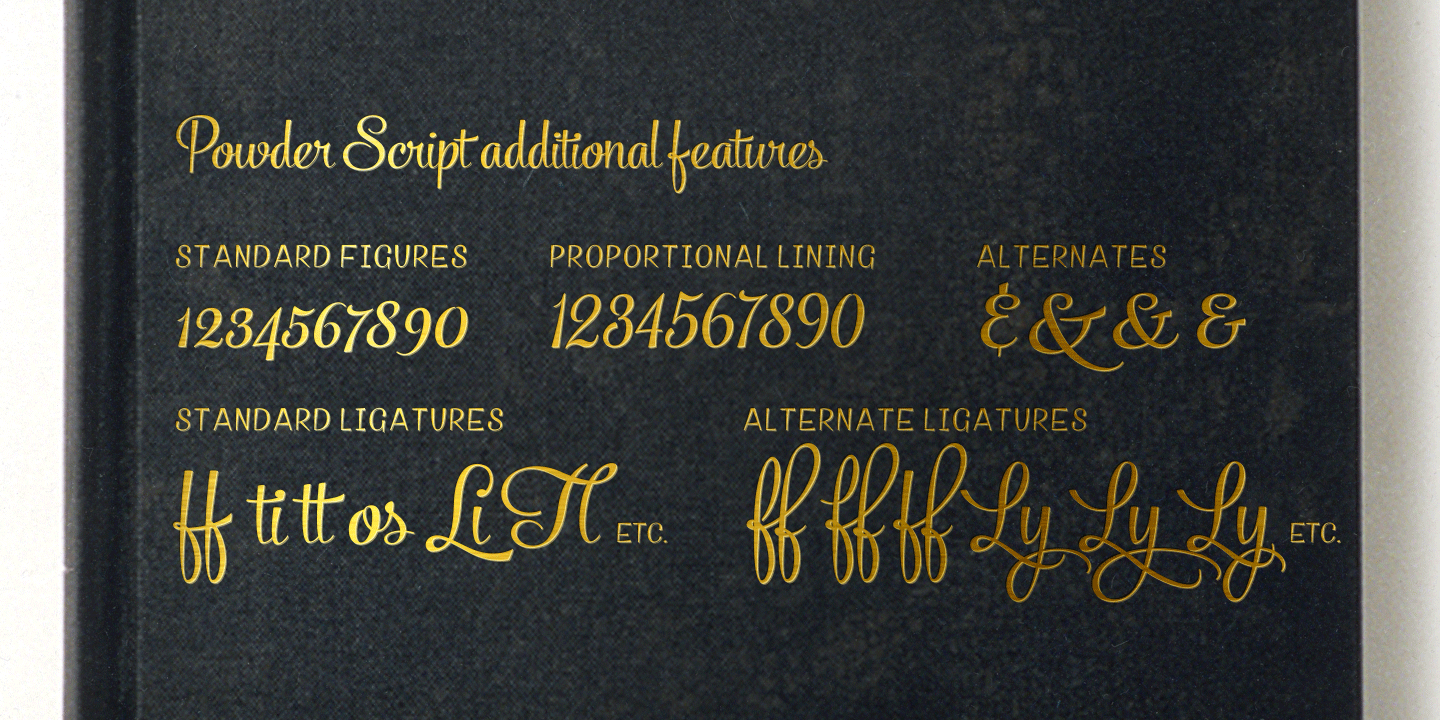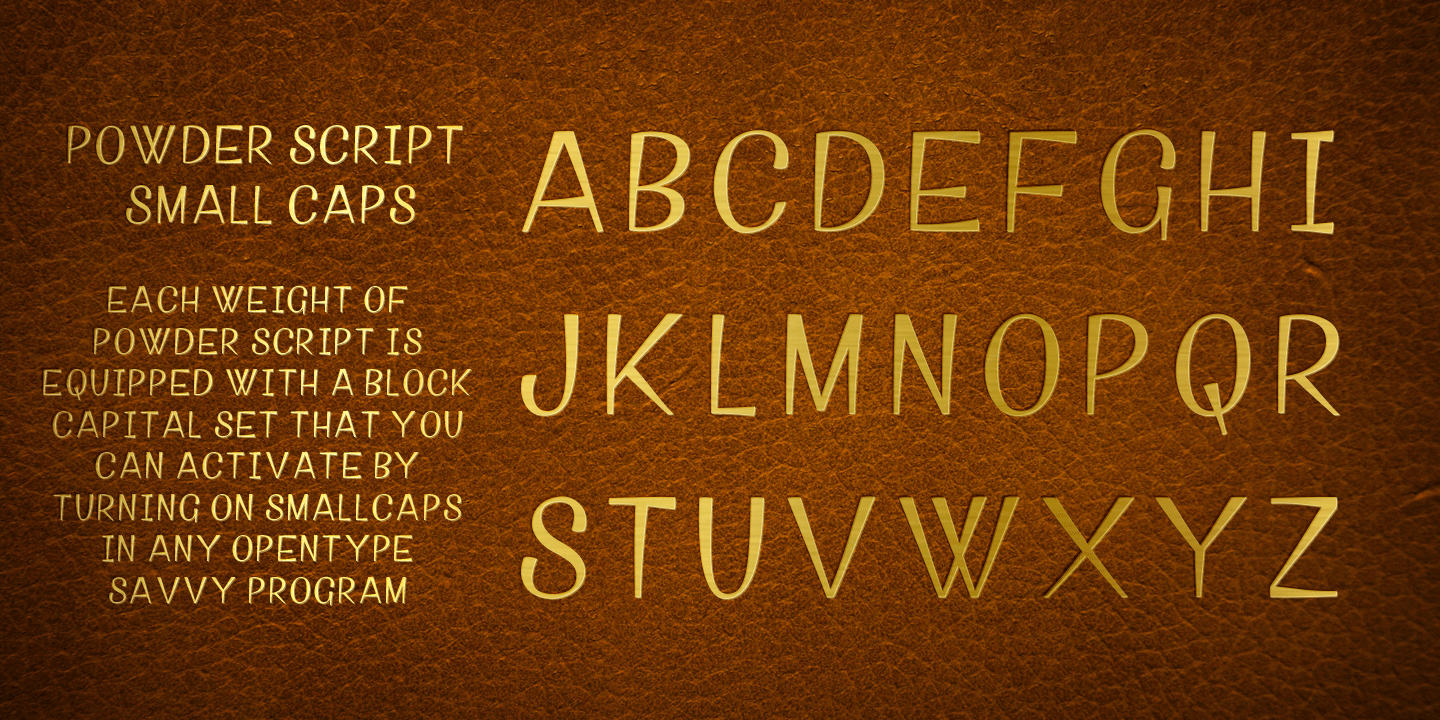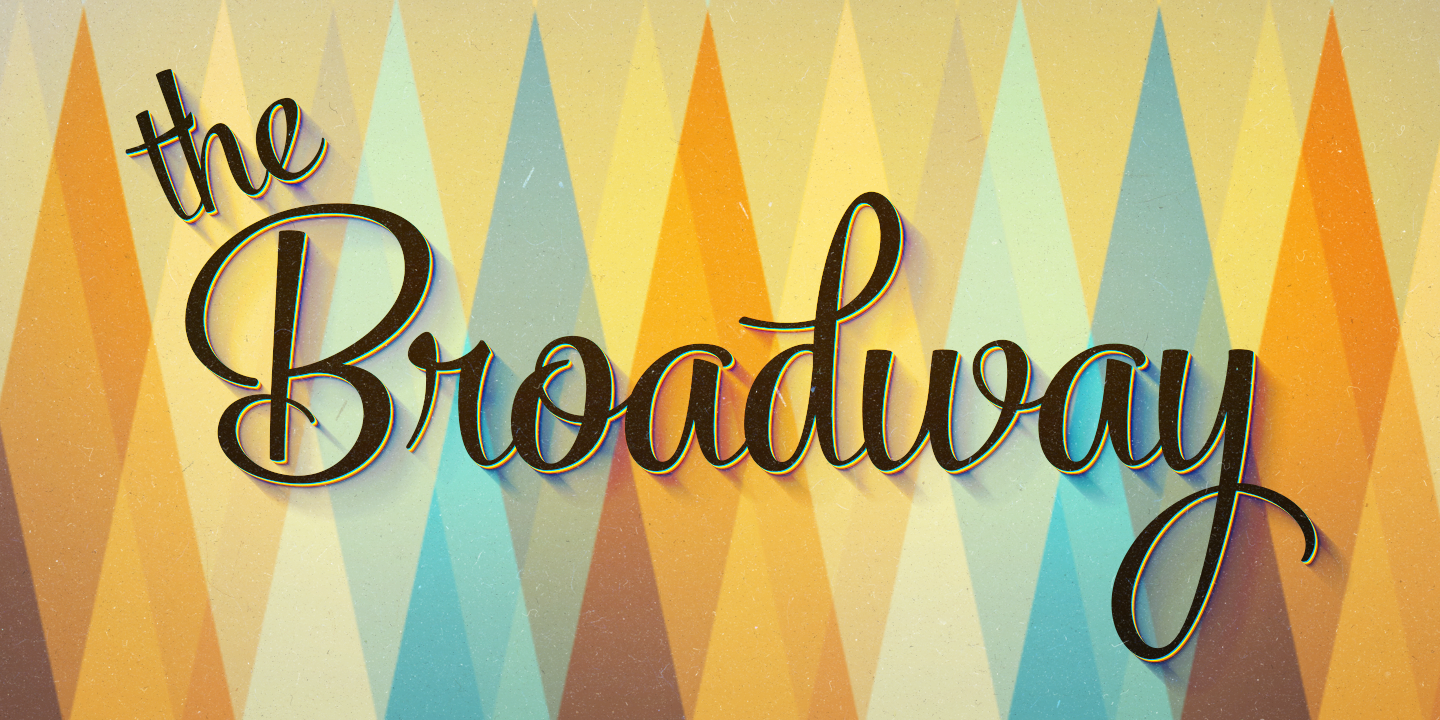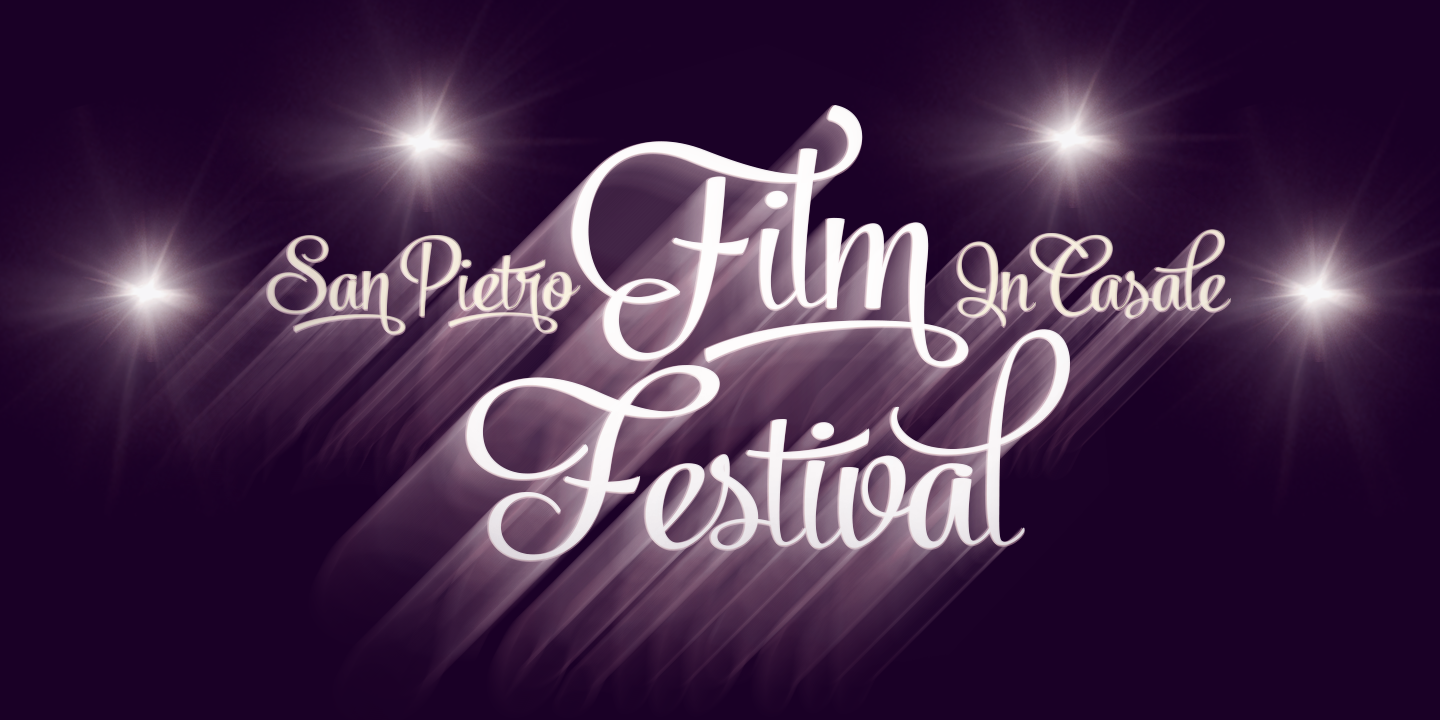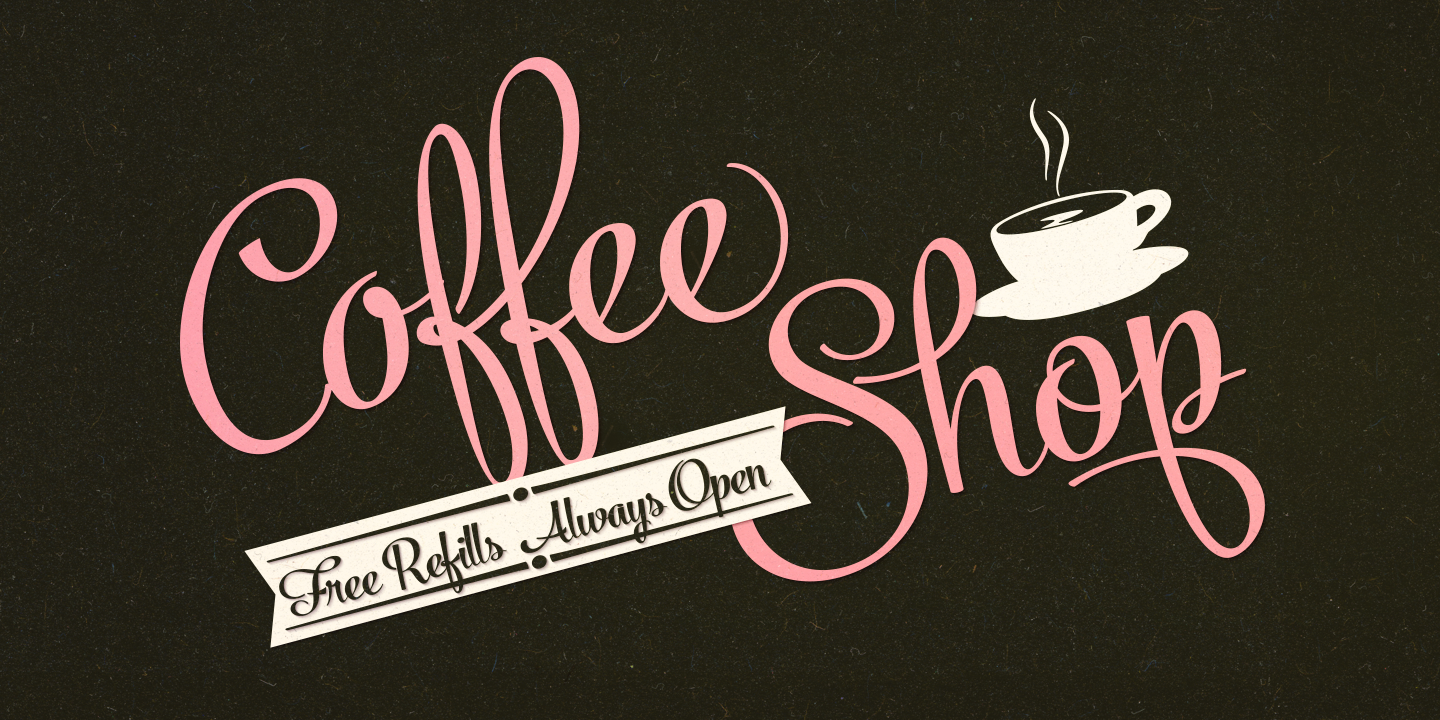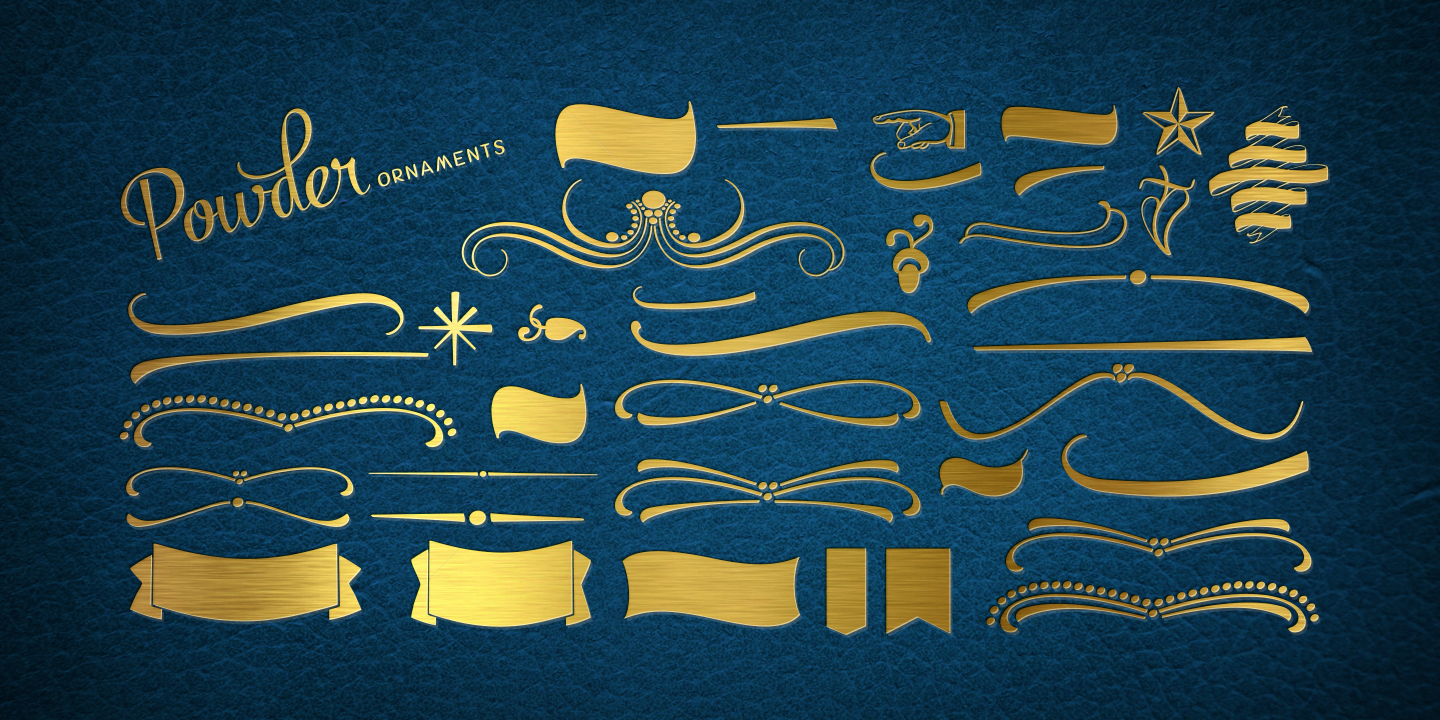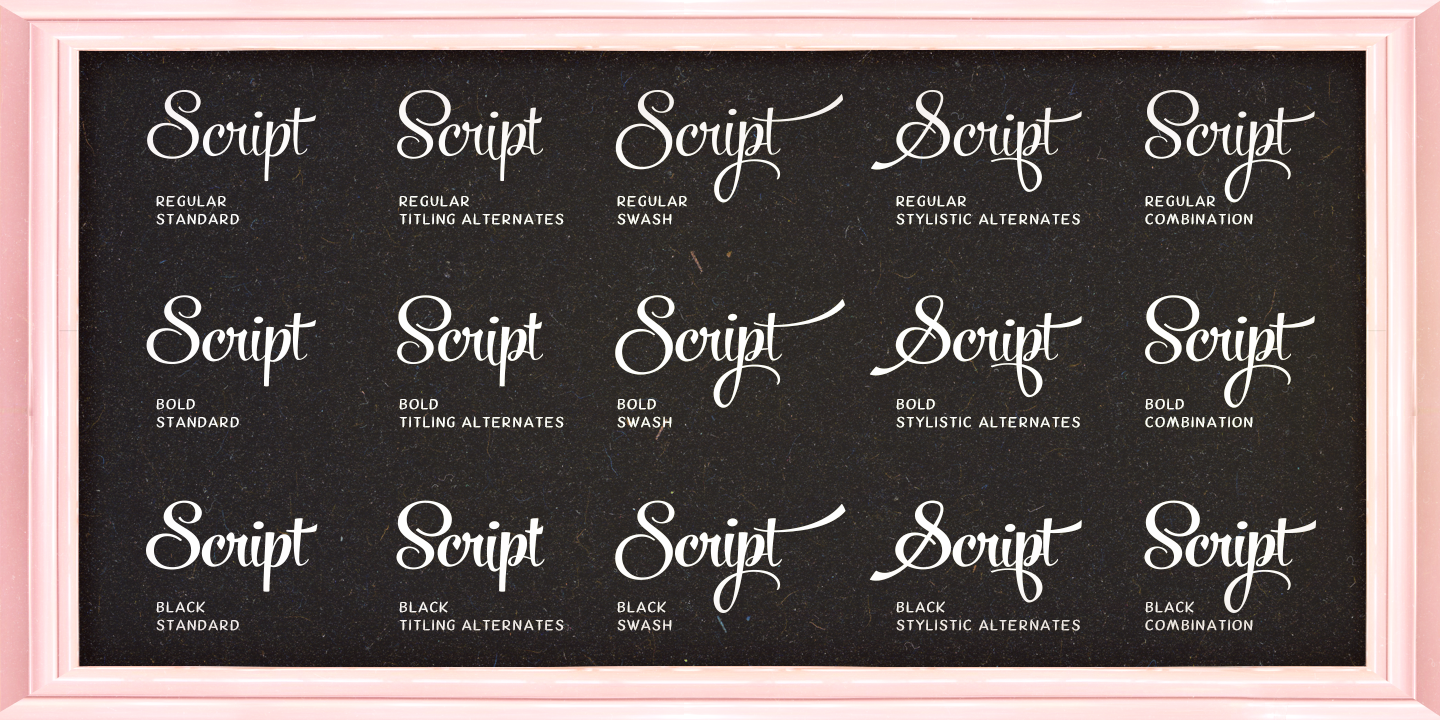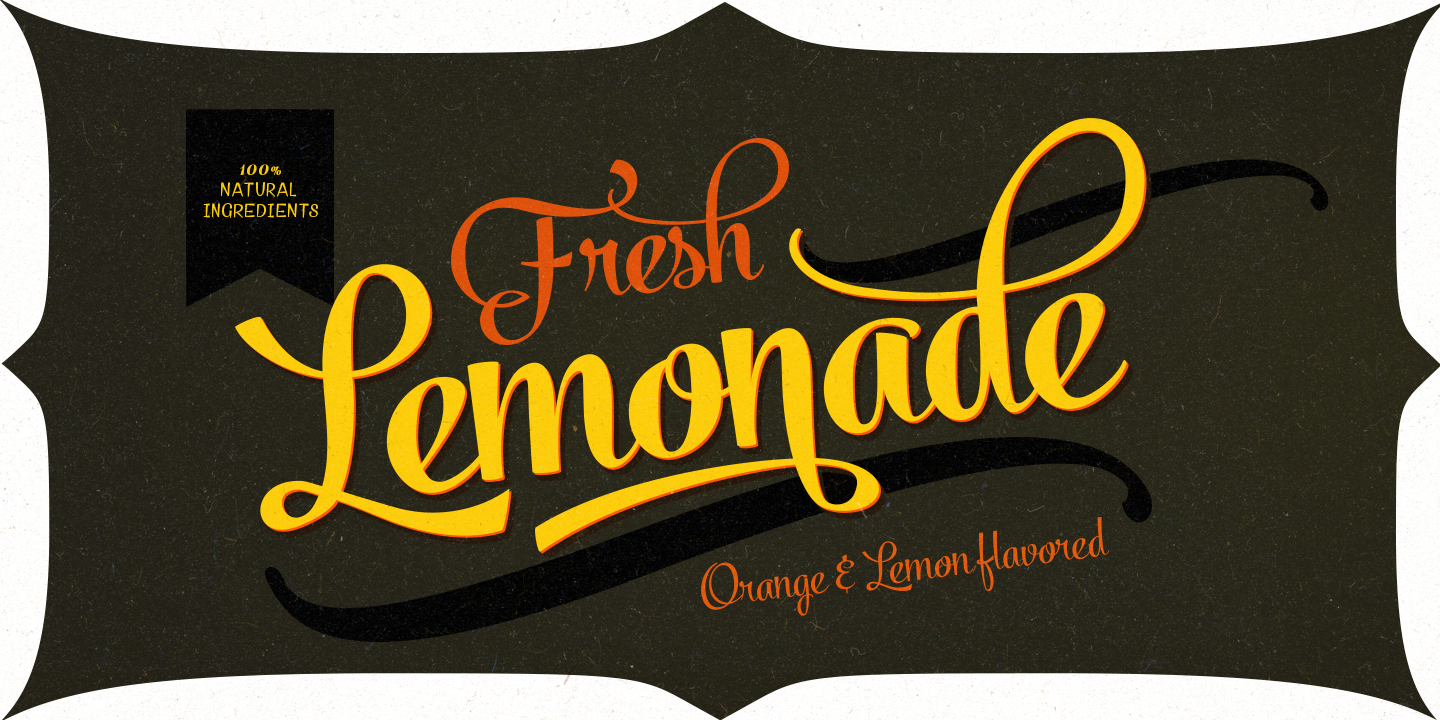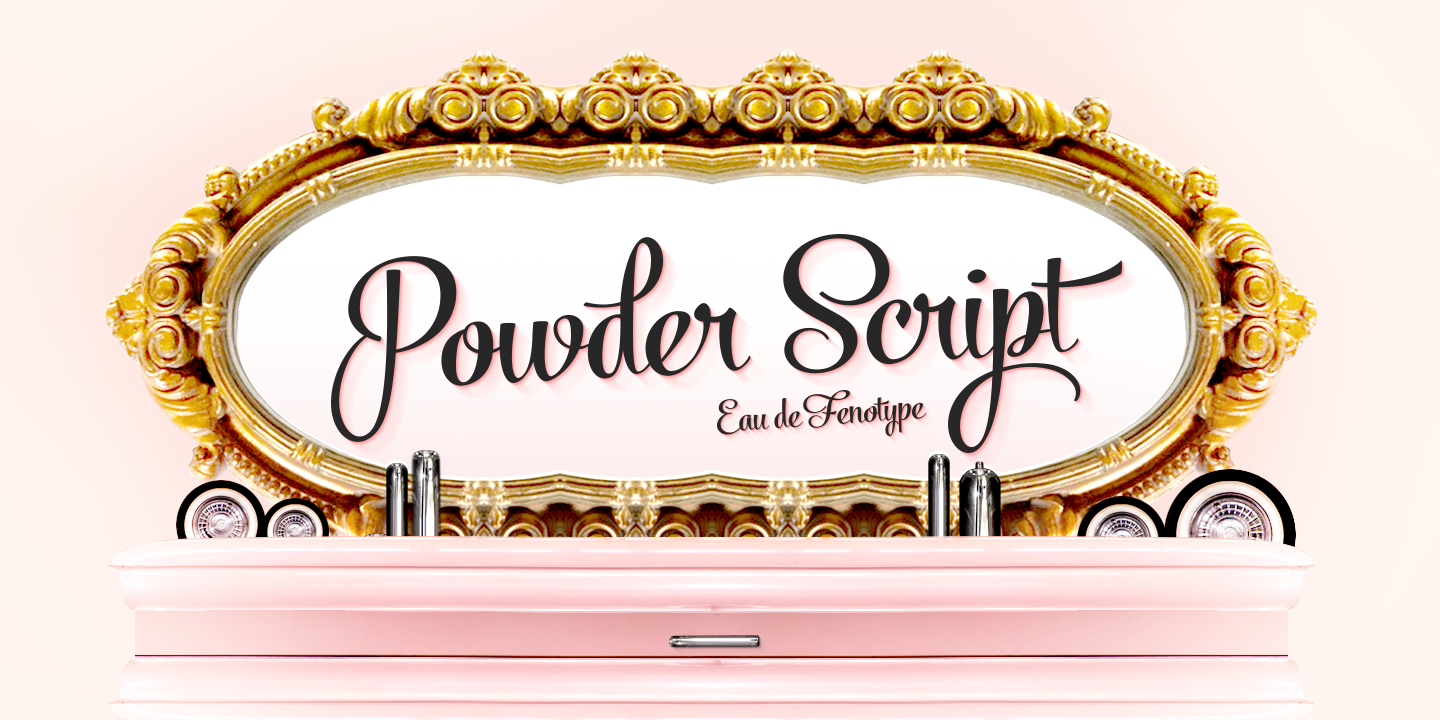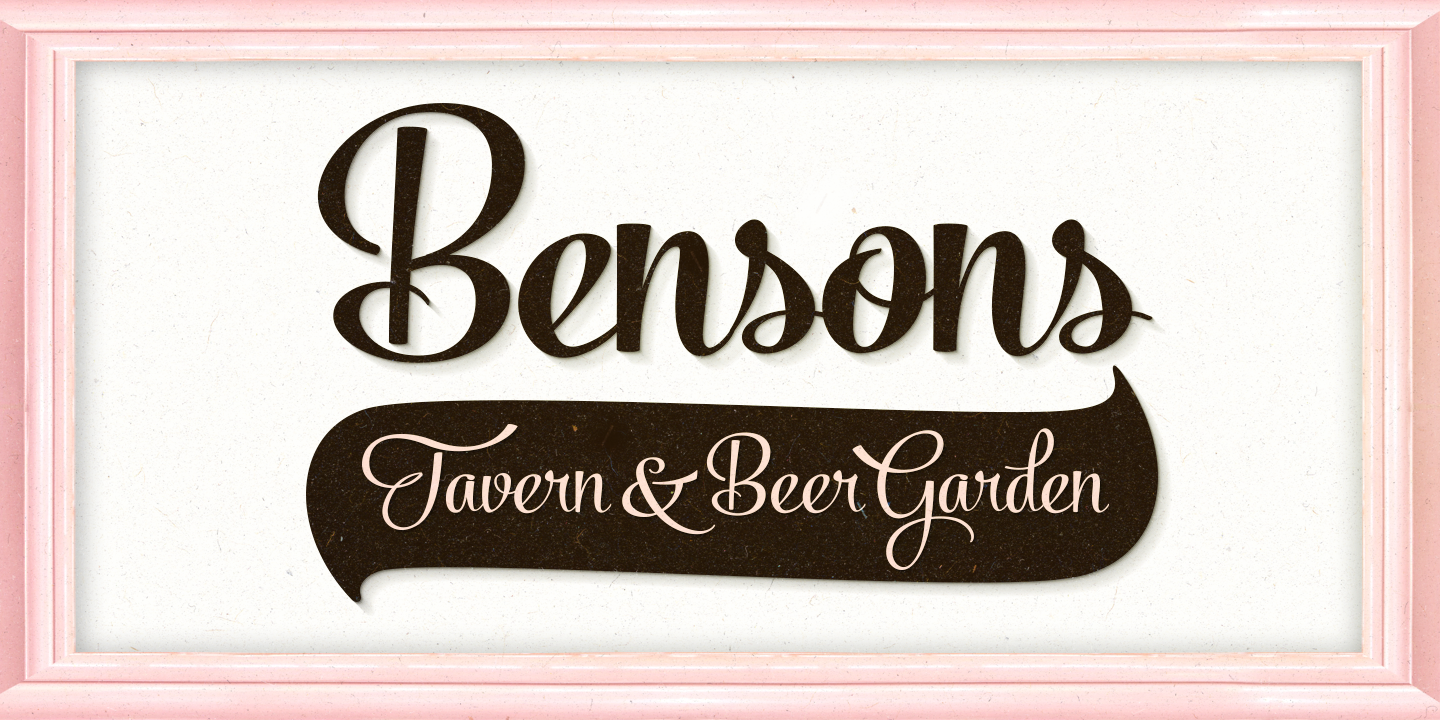
Powder Script Family (5 fonts)
Inside each weight is a set of block capitals that you can activate by turning on Small Caps. You can use Small Caps to create evenly lined text blocks to support your design.
Engage Powder Ornaments and Powder Patterns to complete your designs while using Powder Script.
OpenType features: Ligatures, Small Caps, Alternates, Swash